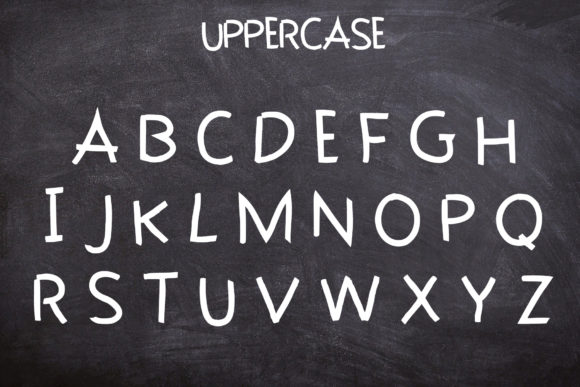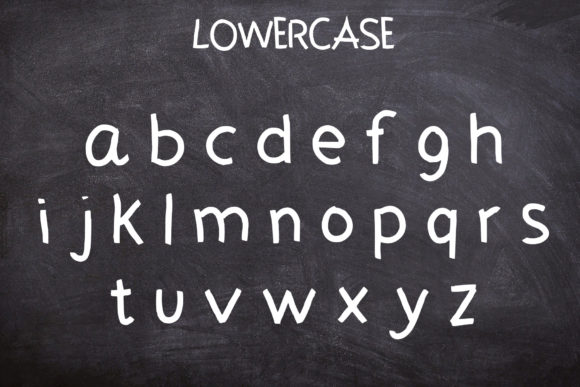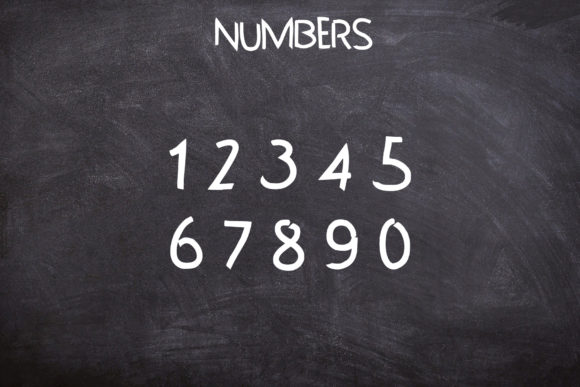
Introduction to ChalkBlunt Font
ChalkBlunt is a fun and casual display font.
It is suitable for any branding, product packaging, invitation, quote, t-shirt, label, poster, logo that you wish to develop .
ChalkBlunt Font offers exceptional quality and versatility, making it a valuable addition to your design toolkit. Whether you’re creating for personal projects or commercial use, ChalkBlunt Font delivers professional results.